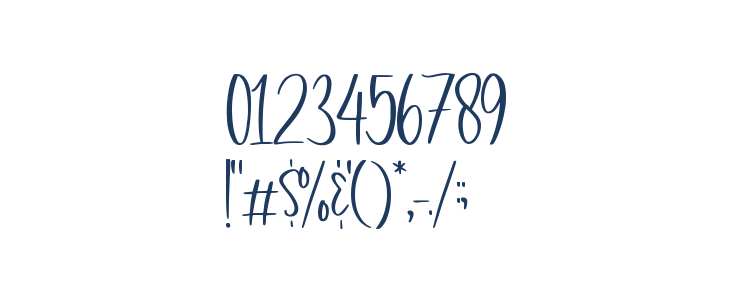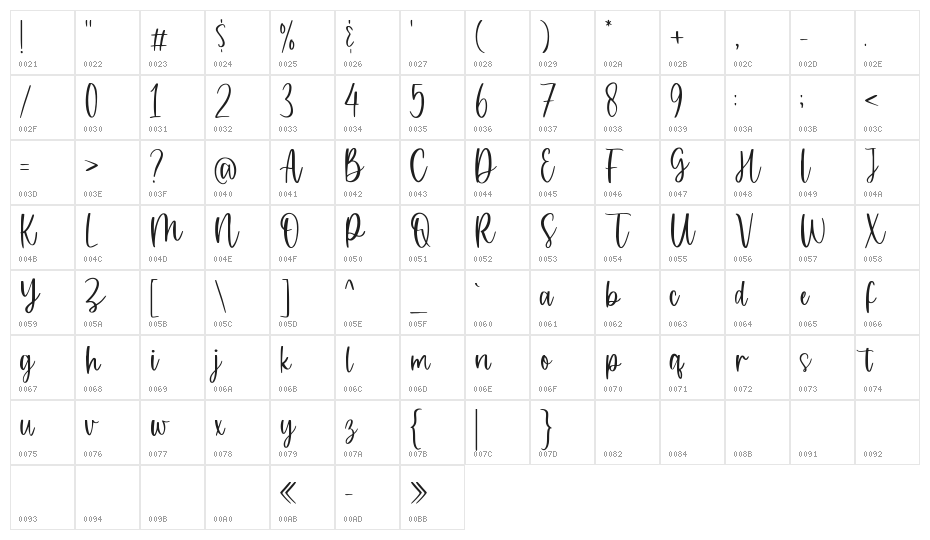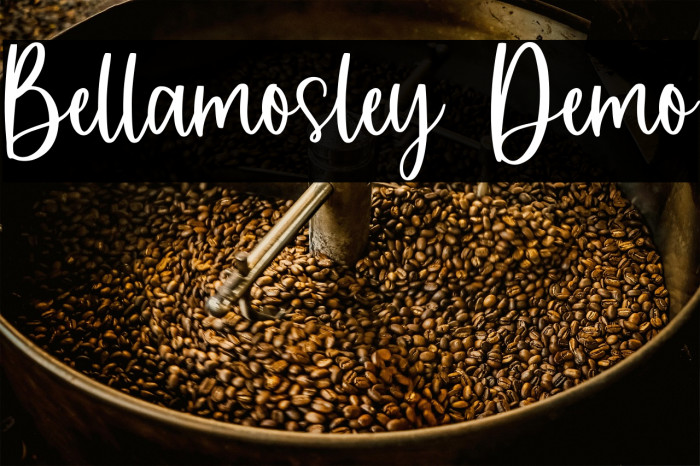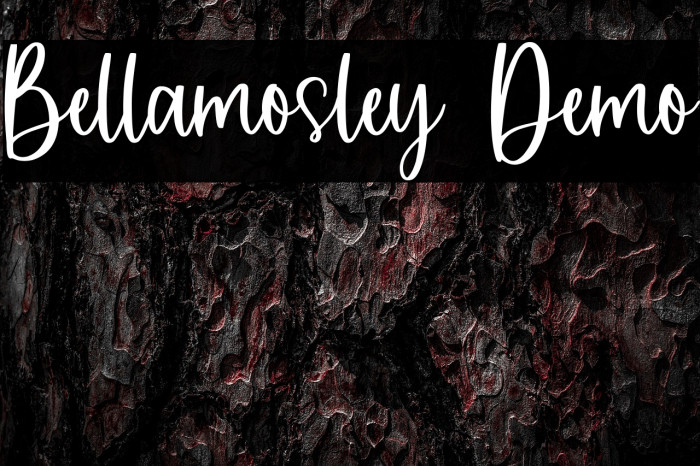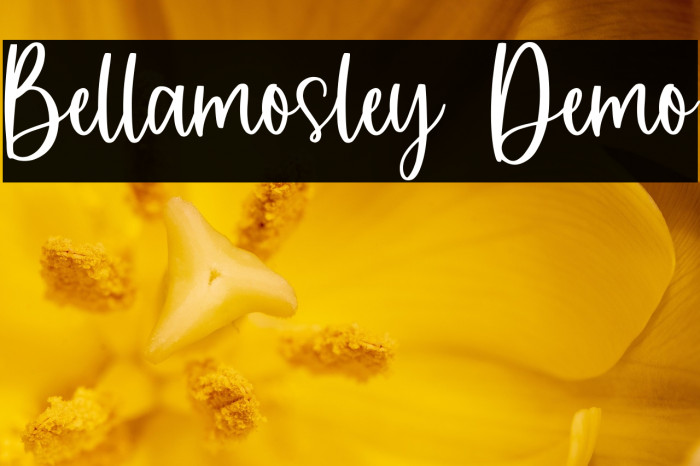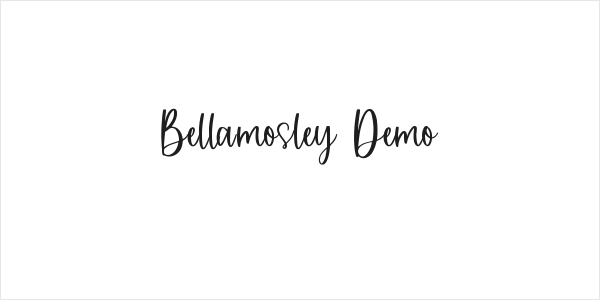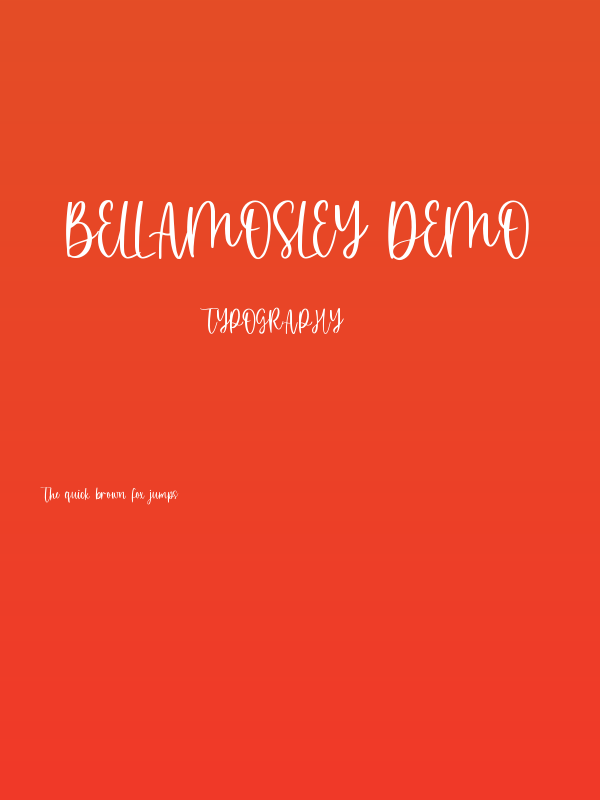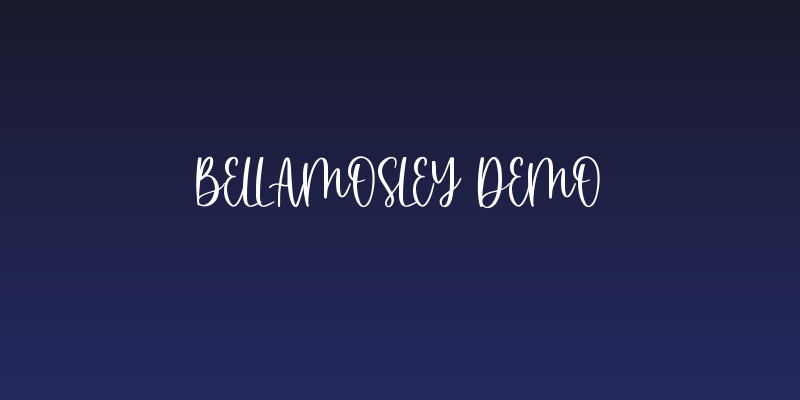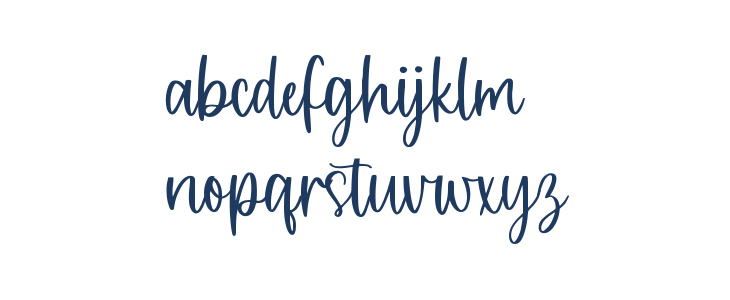
Bellamosley Demo Font
Bellamosley Demo Description
This font features a lively and flowing script style, characterized by its elegant, cursive letterforms. The uppercase letters are tall and graceful, with sweeping curves and loops that give a sense of motion and fluidity. The lowercase letters maintain a consistent style, with rounded forms and smooth connections between characters, enhancing the handwritten feel. The numerals are distinct and easy to read, while the special characters complement the overall aesthetic with their playful yet sophisticated design. This font exudes a sense of creativity and personal touch, making it ideal for projects that require a warm and inviting appearance.
| Use Case | Logos, Invitations, Social Media Graphics |
| Proposed Projects | Ideal for wedding invitations, greeting cards, branding, and social media graphics. |